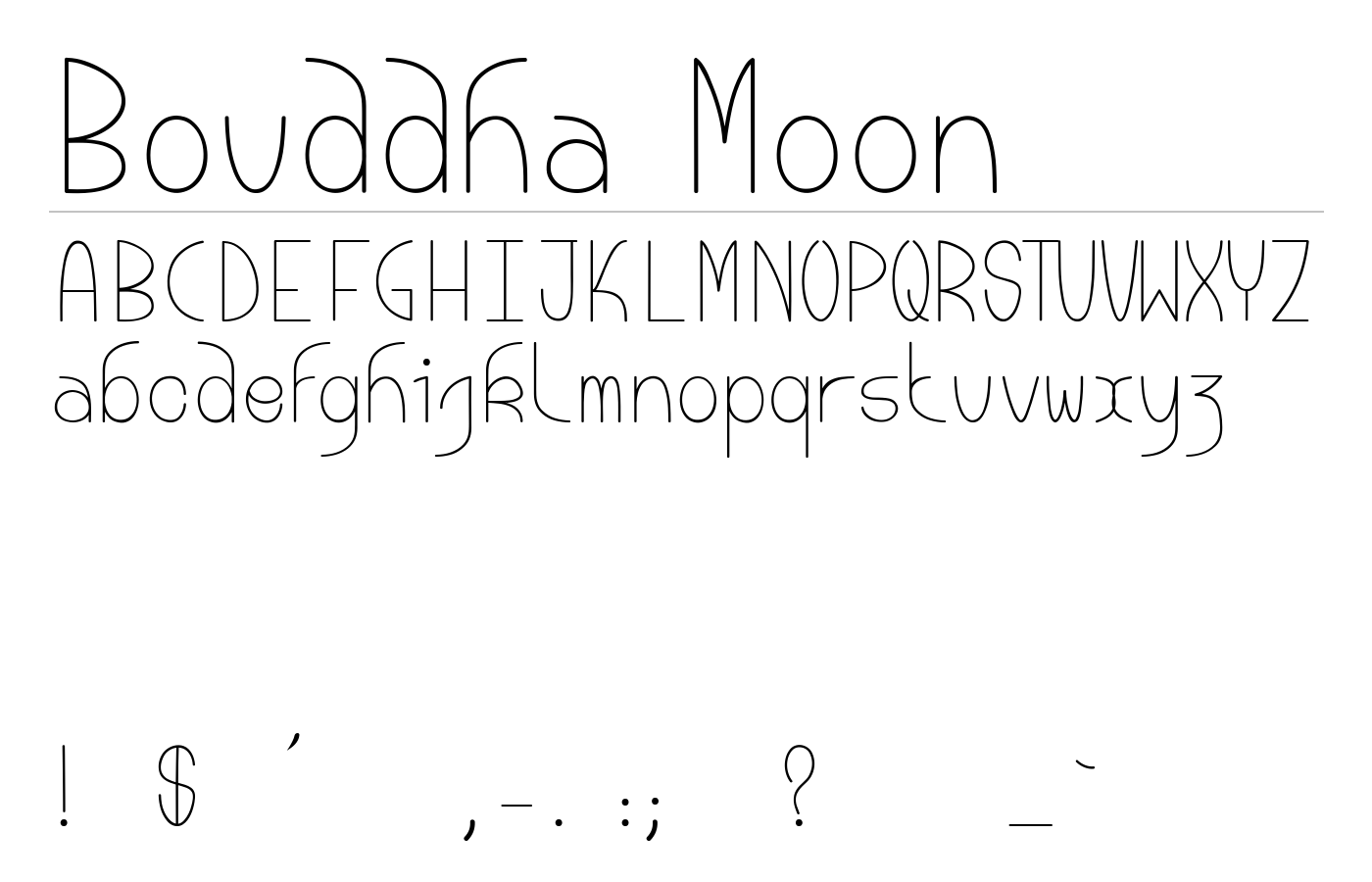
Bouddha Moon is a delicate, narrow sans serif font characterized by its thin strokes and quirky, rounded letterforms that evoke a whimsical, hand-drawn feel. Its minimal contrast and tall x-height create an airy, light impression, making it well-suited for creative projects, casual branding, and artistic headlines where a unique, playful yet refined personality is desired. This font works best in contexts that call for a modern, approachable vibe with a touch of elegance and individuality.